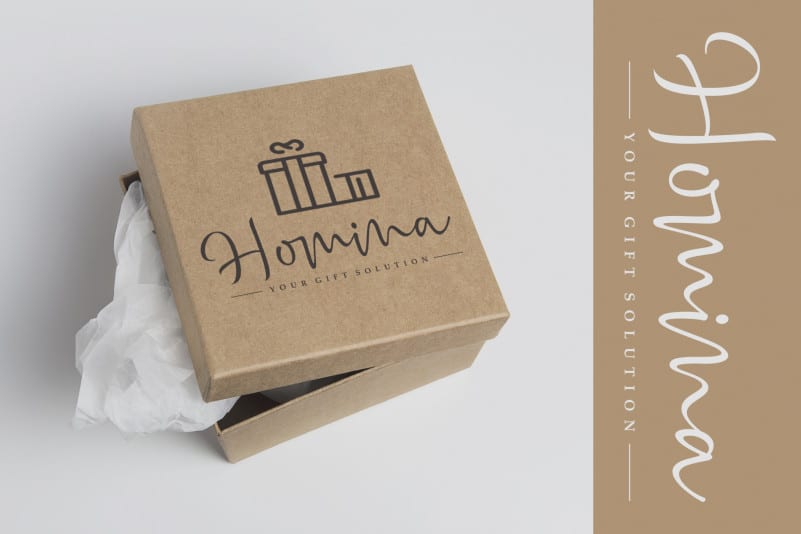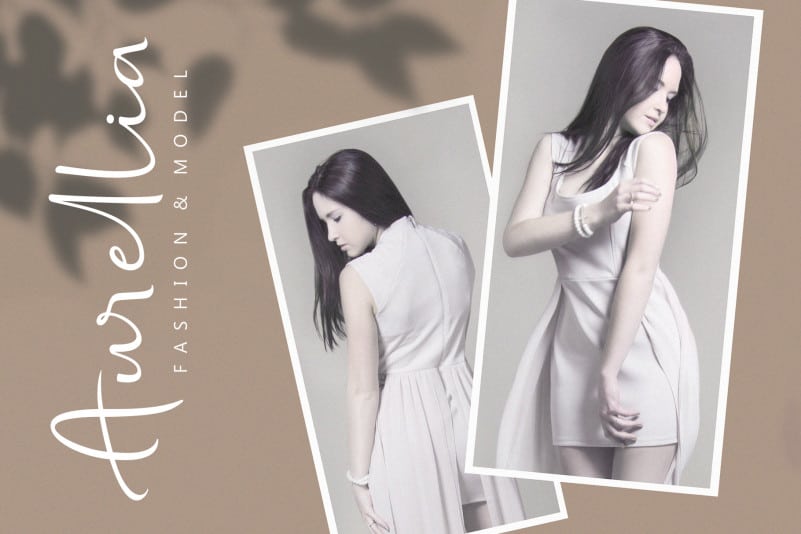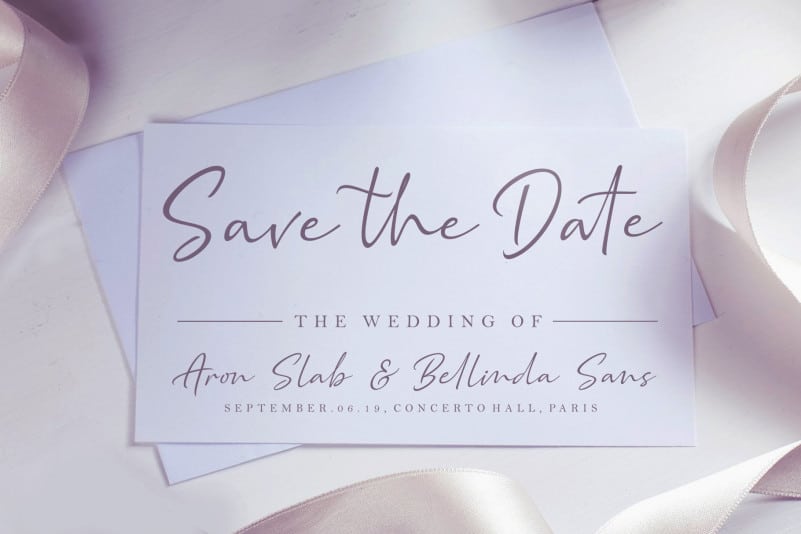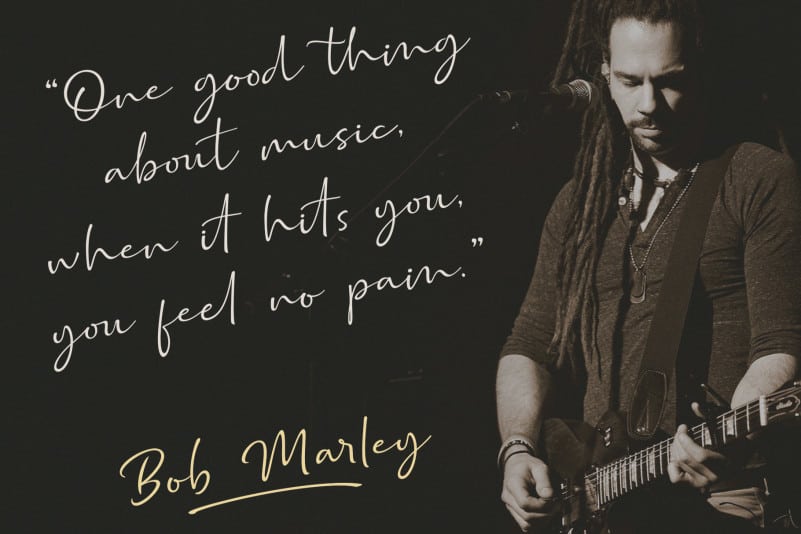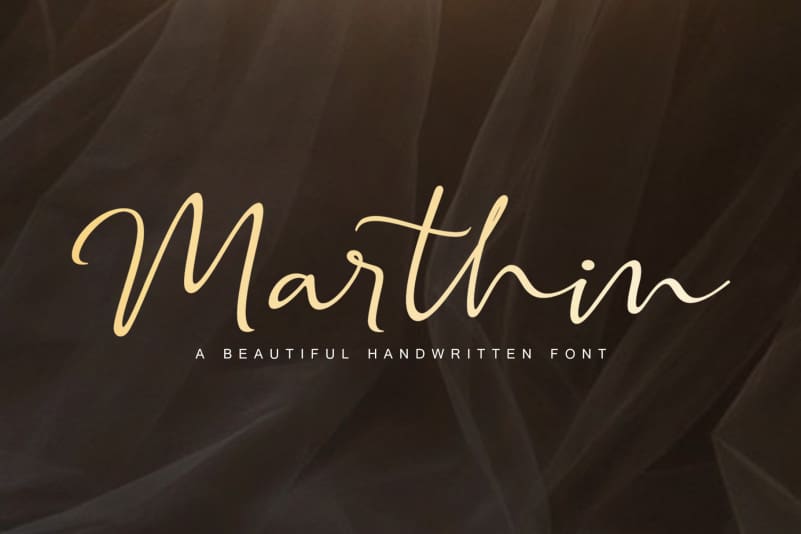
Marthin – Beautiful Handwritten Font
Introducing Marthin Beautiful Handwritten Font – a new modern signature with elegant lines make this font perfect for your personal branding and any awesome project, such as : logos, invitations, stationery, wedding designs, social media posts, advertisements, product packaging, product designs, labels, photography, watermarks, special events and much more !